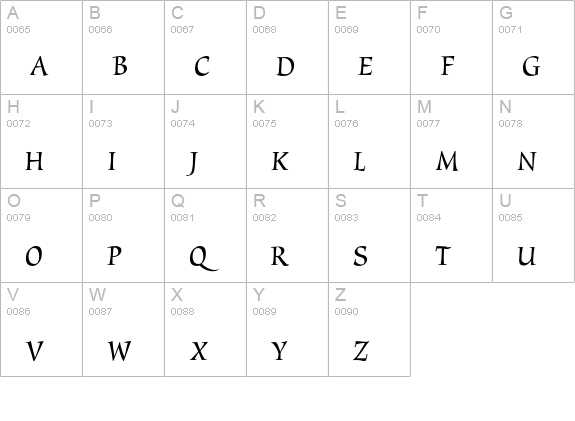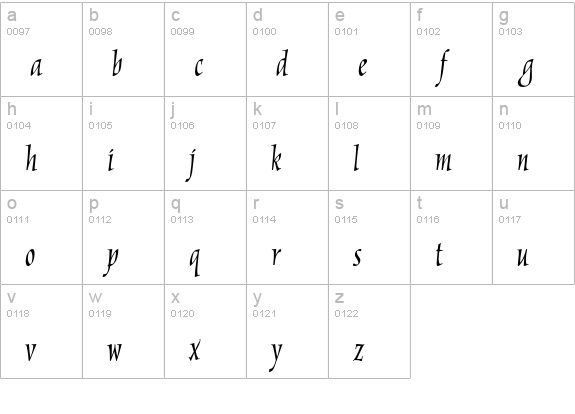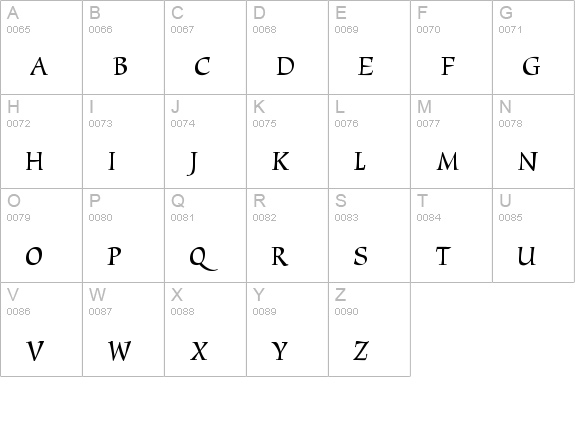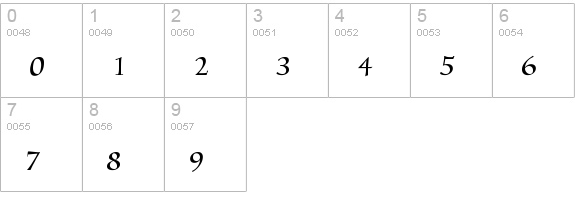
Marigold Font Details
Introducing Marigold, a stunning font that effortlessly combines elegance with modernity. This exquisite typeface is the perfect choice for those seeking a touch of sophistication in their designs. With its delicate, flowing lines and intricate details, Marigold adds a sense of grace and beauty to any project. Its versatile nature allows for a wide range of applications, making it suitable for everything from wedding invitations to branding materials. But what truly sets Marigold apart is its accessibility. This remarkable font is available for free download at FontsMarket.com, making it easily accessible to designers, creatives, and enthusiasts alike. Embracing the spirit of inclusivity, Marigold ensures that everyone has the opportunity to enhance their work with this exceptional font. Whether you're designing a logo, crafting a website, or creating eye-catching posters, Marigold is sure to captivate your audience. Its timeless appeal and refined aesthetics will leave a lasting impression, elevating your designs to new heights. Download Marigold today from FontsMarket.com and experience the sheer beauty and versatility of this remarkable font. Let Marigold be the secret weapon in your creative arsenal, adding a touch of elegance and sophistication to your every endeavor.